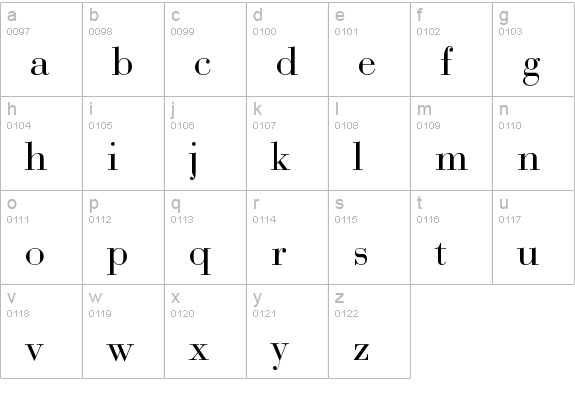
Bedini font is a modern and stylish typeface that exudes elegance and sophistication. With its clean lines and balanced proportions, Bedini is perfect for adding a touch of class to any design project. This versatile font is suitable for a wide range of applications, from branding and advertising to packaging and editorial design. Best of all, Bedini font is available for free download at FontsMarket.com. You can easily access this stunning typeface and enhance your creative projects without any cost. Don't miss out on the opportunity to elevate your designs with the timeless beauty of Bedini font. Download it now and let your creativity shine!